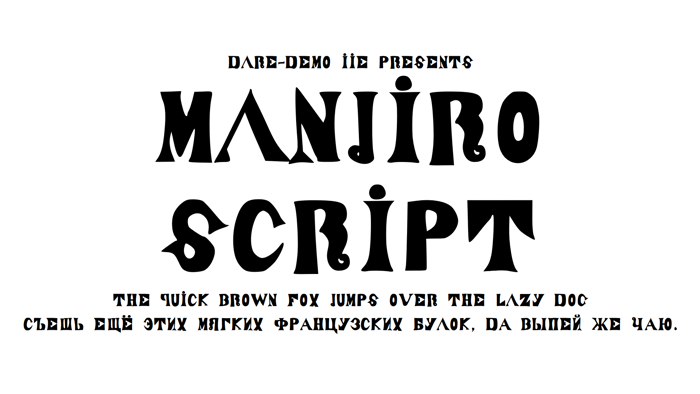
ManjiroScript Font
Manjirō Nakahama, well known as John Manjirō was the first English language interpreter during the end of Shogunate era of Japan. This font is based on his first handwriting of English alphabets and numerals.
Also this font contains Cyrillic alphabets which I created by analogy.